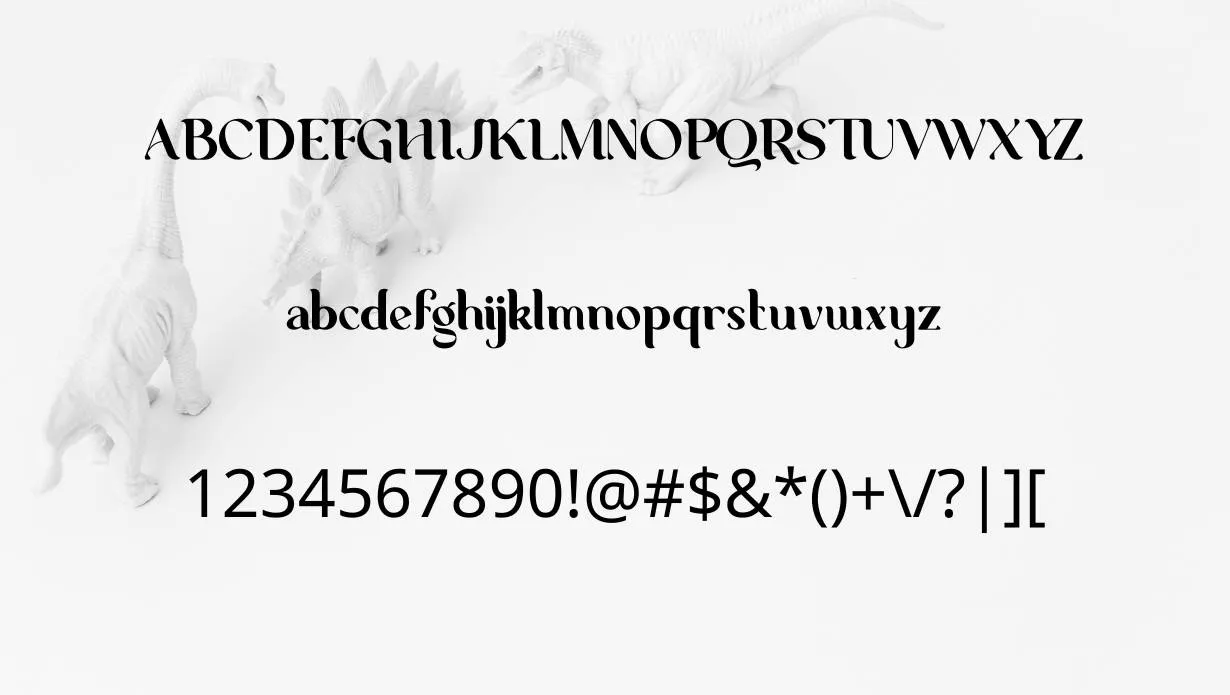
The George Font is a classic and elegant typeface with a timeless appeal. Its traditional yet refined appearance makes it suitable for formal documents, invitations, and vintage-themed designs. This font is commonly used in Microsoft Word and Adobe software, with file formats like.OTF and . TTF.
| Name | George Font |
| Designer | Ahmad Jamaludin |
Its classic style adds a touch of sophistication to various projects, providing a dignified and polished look to the text.